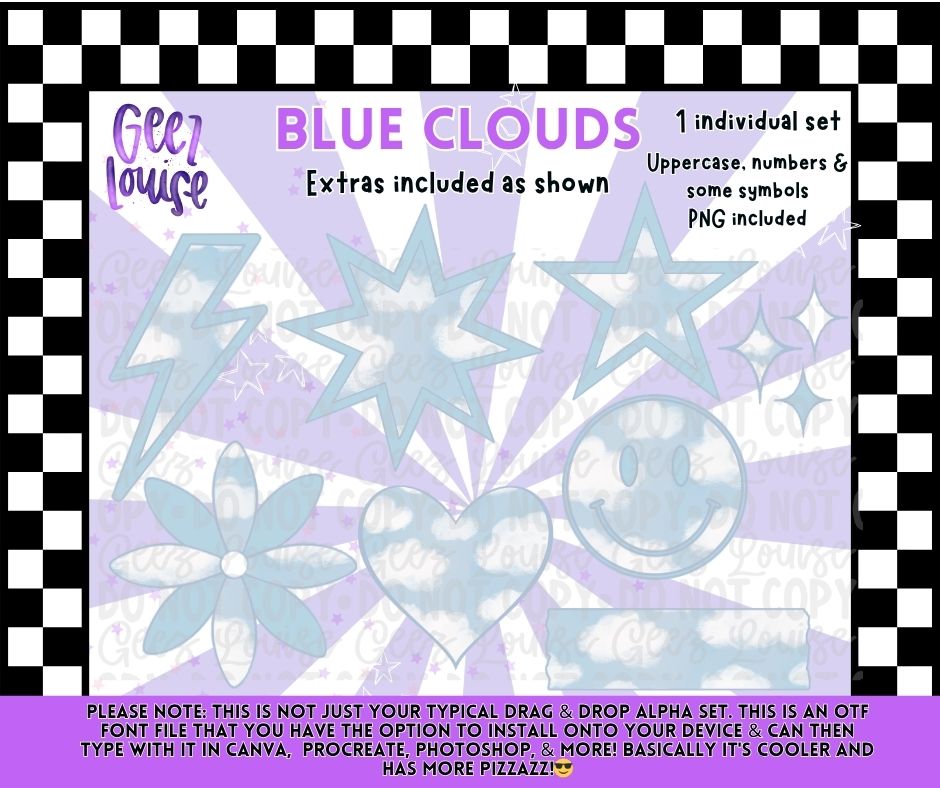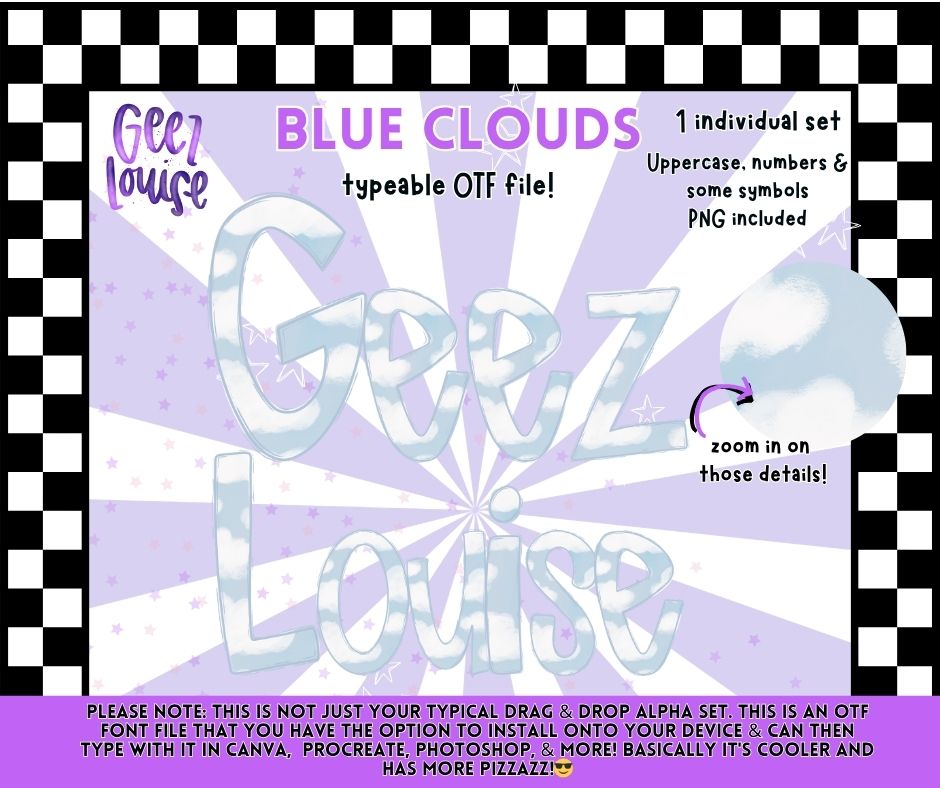
Blue Clouds OTF Font | Typeable Alpha Font & PNG Extras Bundle
Soft skies, dreamy vibes, and cloud-filled creativity ☁️✨
The Blue Clouds OTF Font is a typeable alpha set featuring fluffy cloud-inspired lettering with coordinating extras included. Perfect for creating aesthetic apparel designs, stickers, social graphics, tumblers, and more.
- Smiley face
- Stars
- Lightning bolt
- Heart
- Flower
- Sparkles & shapes
🌥️ Why You’ll Love It:
It’s soft, nostalgic, trendy, and feels like a Y2K daydream floating through a BLUE sky ☁️💜